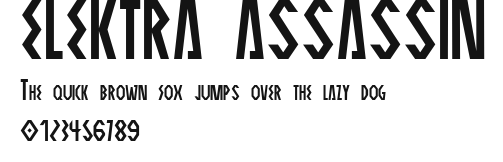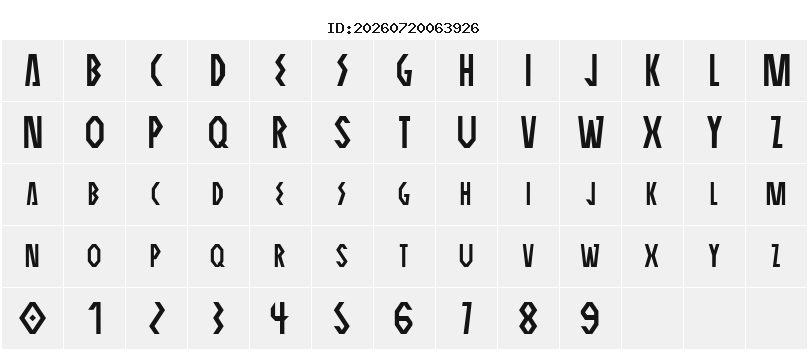
ELEKTRA ASSASSIN Preview
• Font Name: ELEKTRA ASSASSIN
• Designer: SpideRaY
About ELEKTRA ASSASSIN.ttf
ELEKTRA ASSASSIN.ttf is a modern, elegant sans-serif font designed for ultimate readability and visual harmony. Perfect for branding, headlines, web design, and print materials.